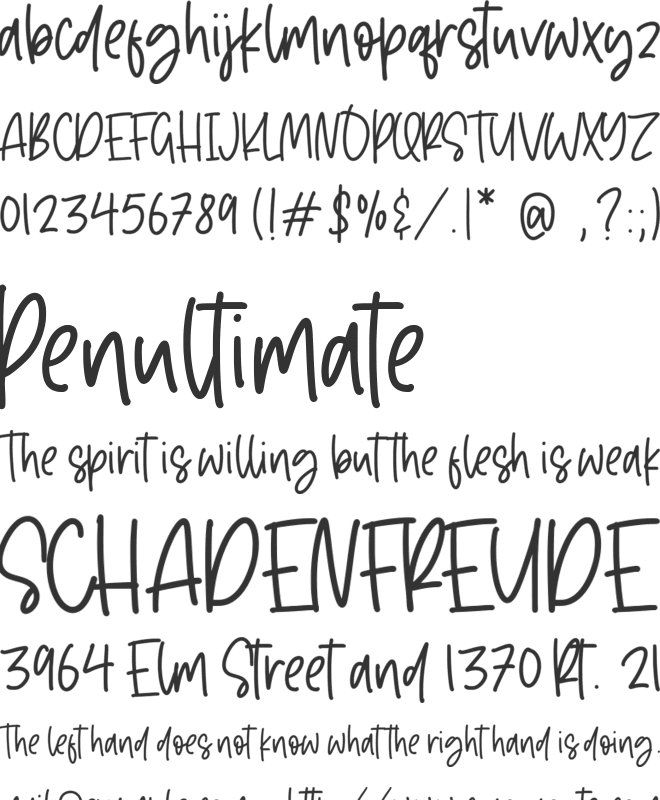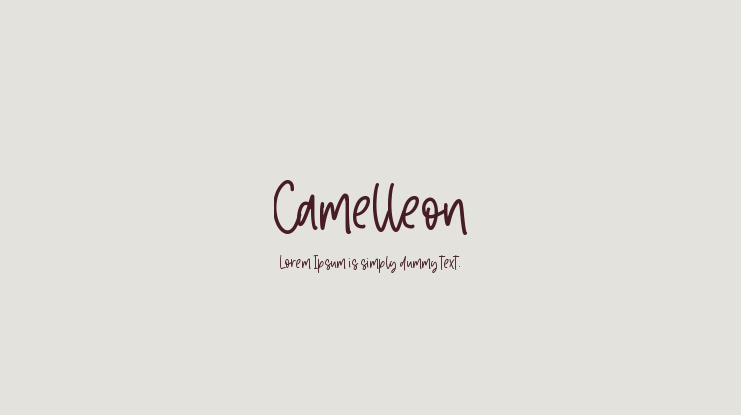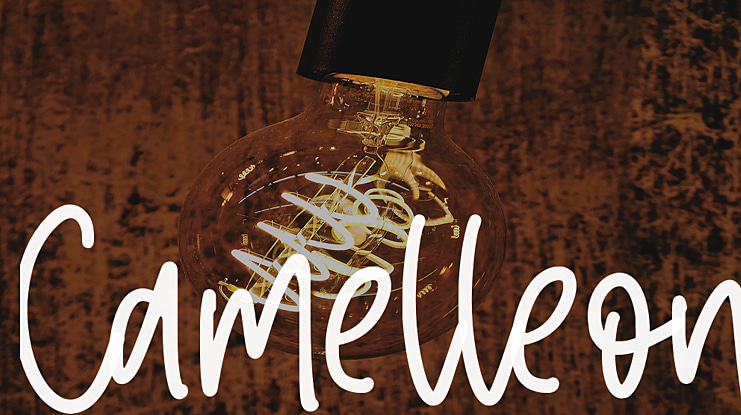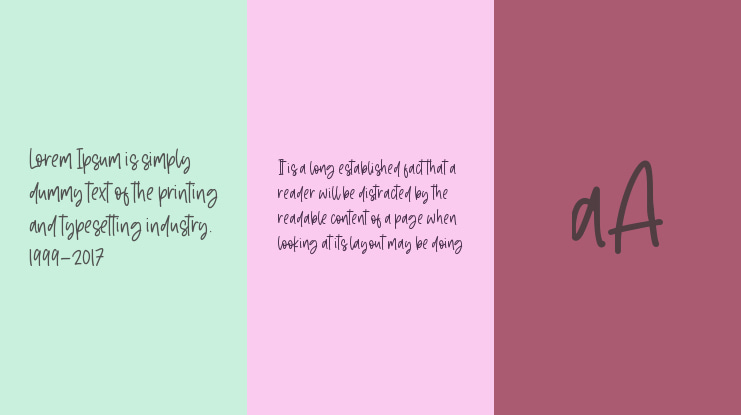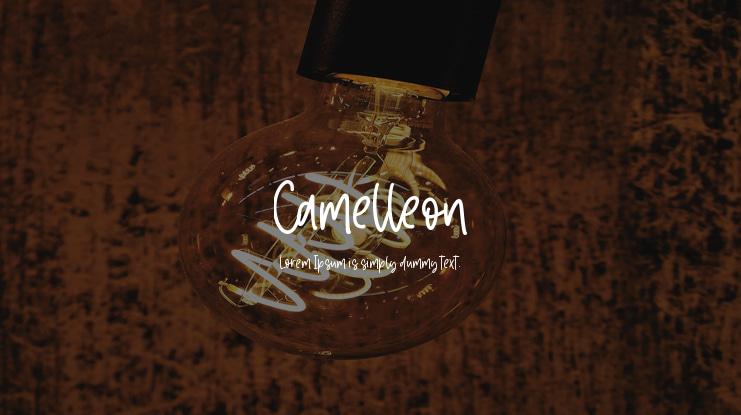
Camelleon Font
Proudly Present, Camelleon Font.
Camelleon is a monoline handwritten font.
Camelleon is perfect for product packaging, branding project, megazine, social media, wedding, or just used to express words above the background.